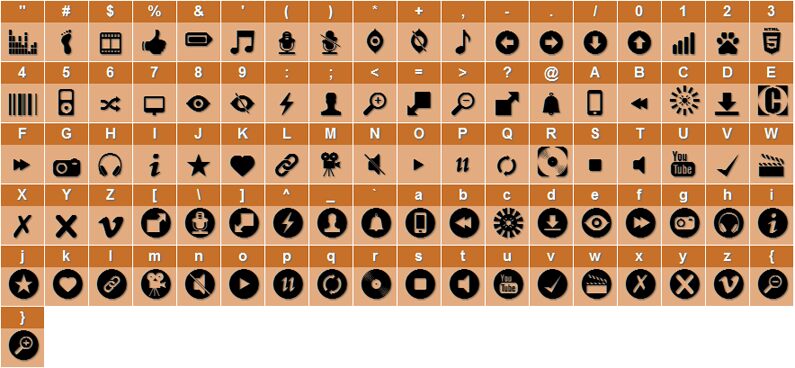
sTmedia by Tsafi.Y of StudioTsafi is a free media-control symbol font with solid, high-impact pictograms. Its collection includes familiar audio, video, device, and information imagery, drawn with broad curves and sharp geometric cuts. The shapes read quickly.
Aimed at entertainment audiences, these symbols suit app interfaces and presentation graphics. Their silhouettes also fit event posters and music merchandise with a technology theme. In publishing, a camera, record, or playback mark can become an illustrated badge rather than neutral text.